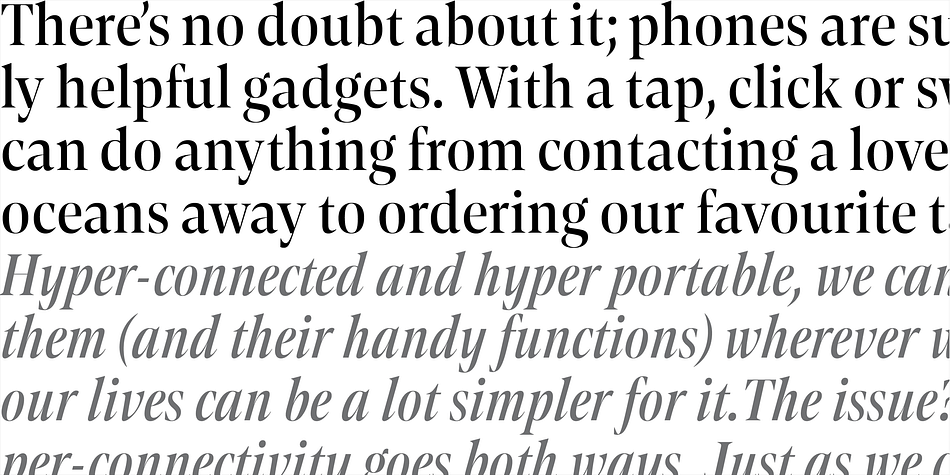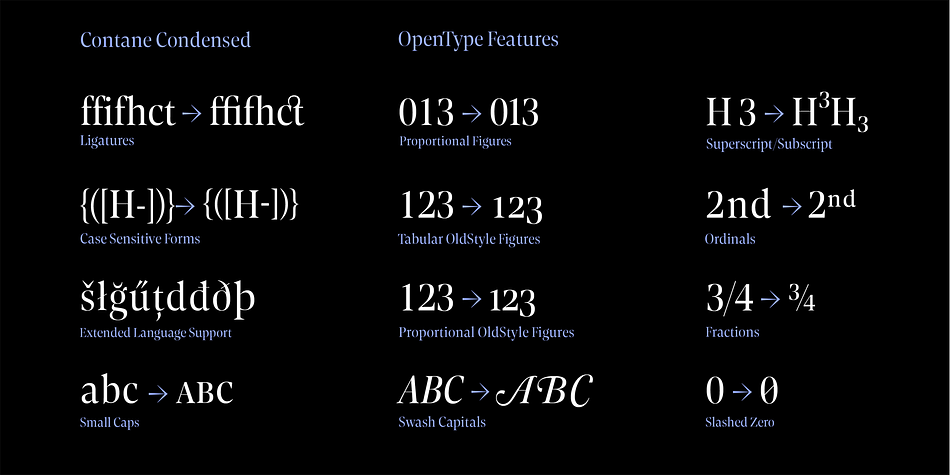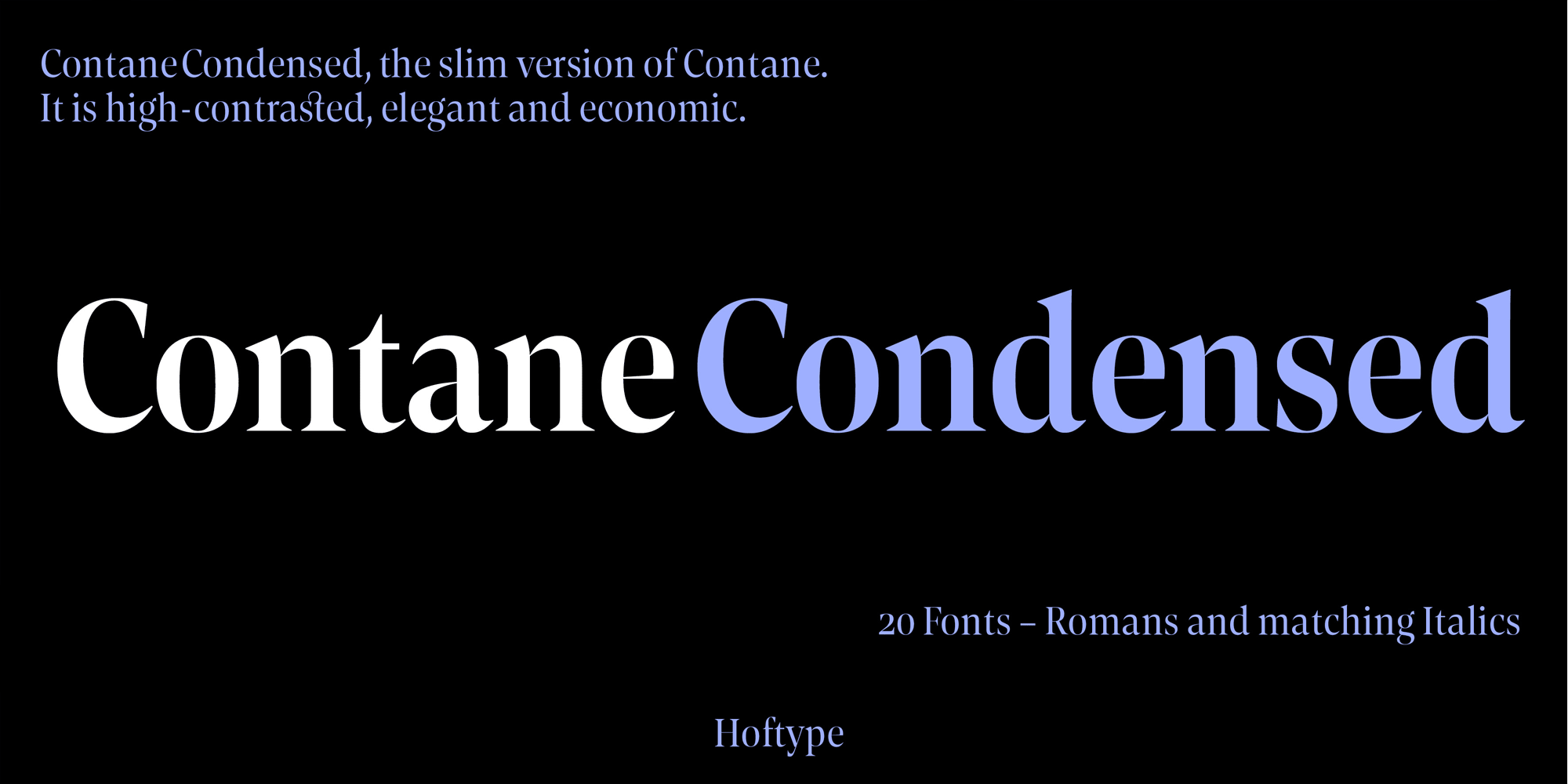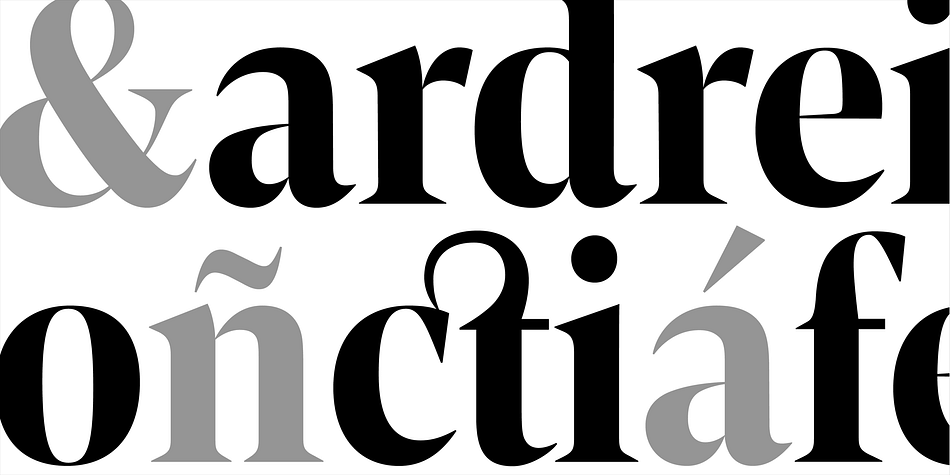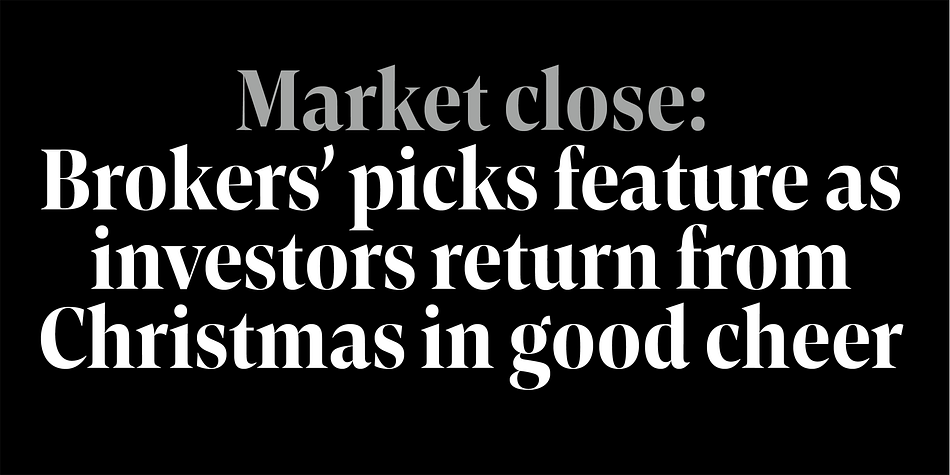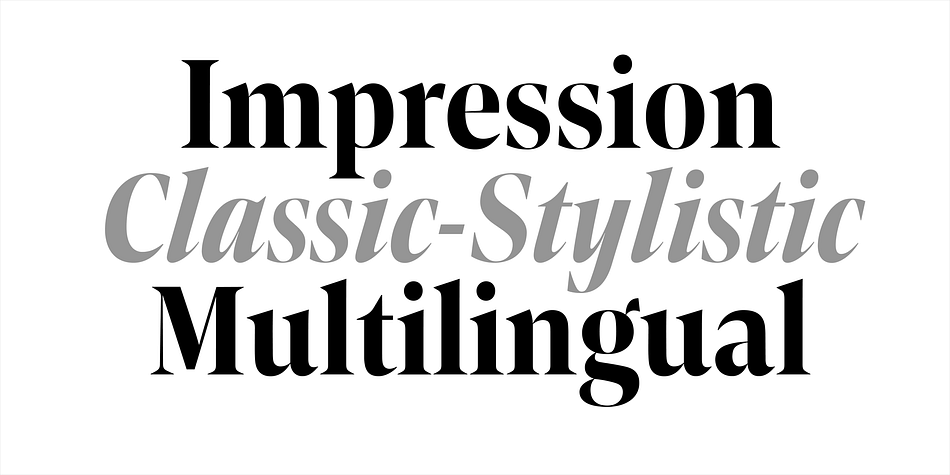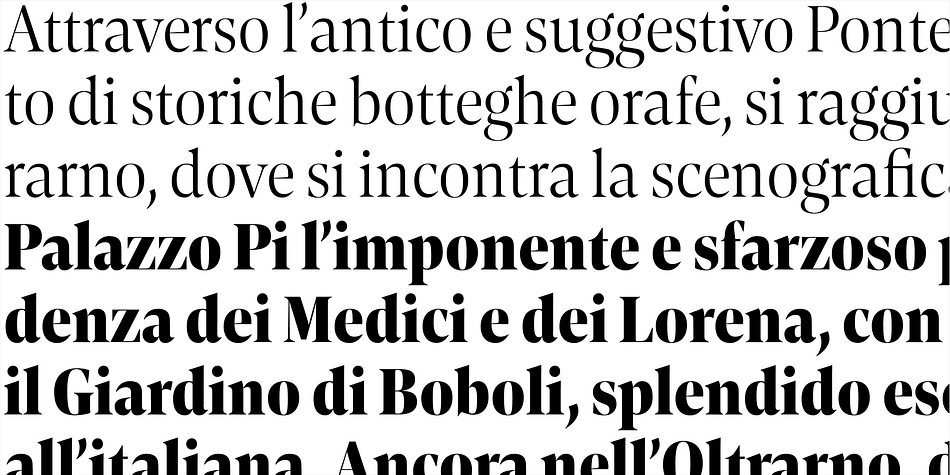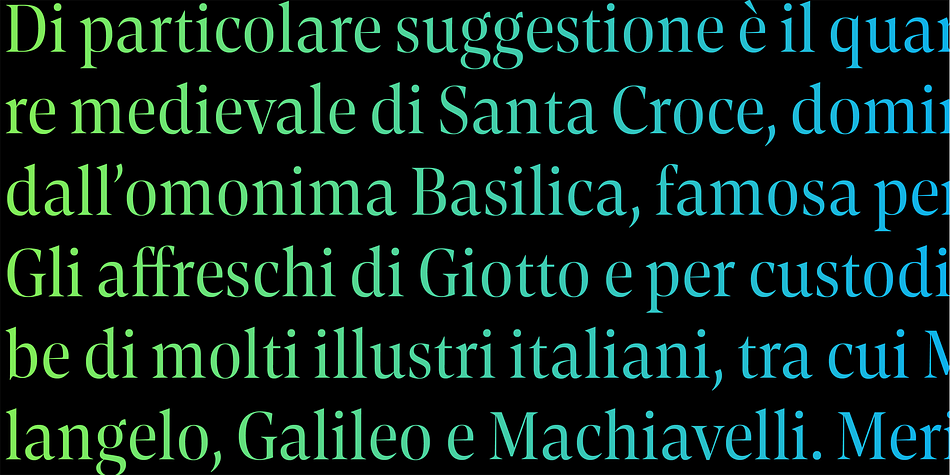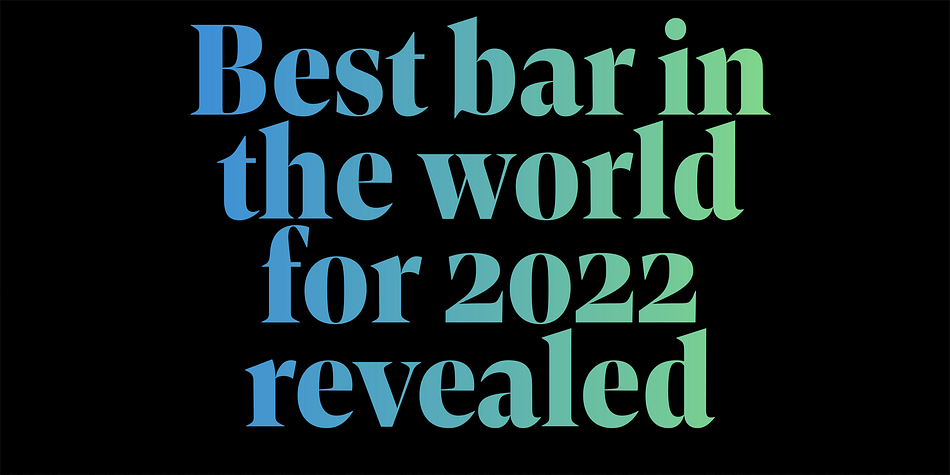
Contane Condensed
Designed by Dieter Hofrichter, Contane Condensed is a display serif font family. This typeface has twenty styles and was published by Hoftype.
Contane Condensed is the slim complement to the Contane Family.
Its economic proportions permit space saving applications, in particularly,
eye catching headlines and subheads. Contane Condensed is high-contrasted,
and the spiky wedge shaped serifs, still result in an elegant text flow.
Contane supports up to 80 languages and it’s OpenType format allows a wide range of typographic applications. 20 styles offer fine graduation of the weights. All weights contain small caps, ligatures, superior characters, proportional lining figures, tabular lining figures, proportional old style figures, lining old style figures, matching currency symbols, fraction- and scientific numerals, matching arrows and alternate characters.